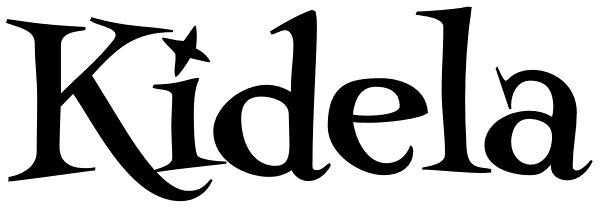
Kidela
Kidela is an exuberant and eccentric serif typeface reminiscent of hand painted signage. Kidela features tight kerning and spacing, and some interesting effects can be achieved by adjusting the tracking. The typeface includes 64 discretionary...